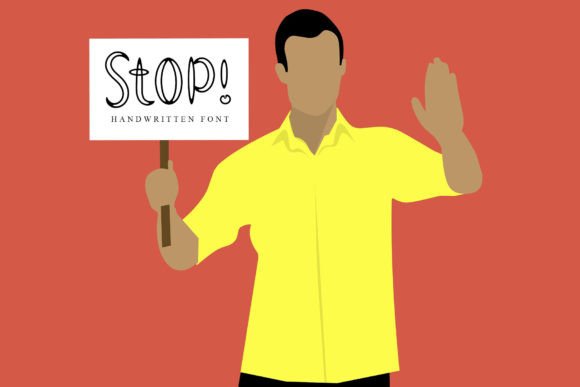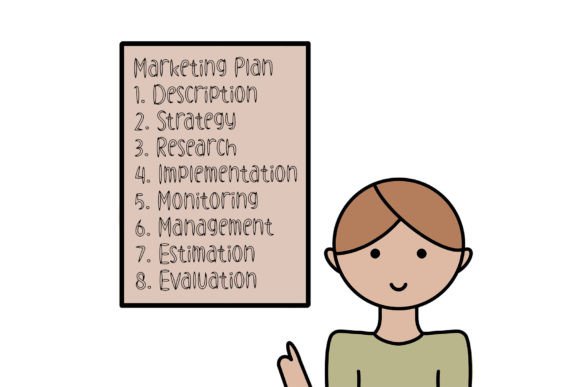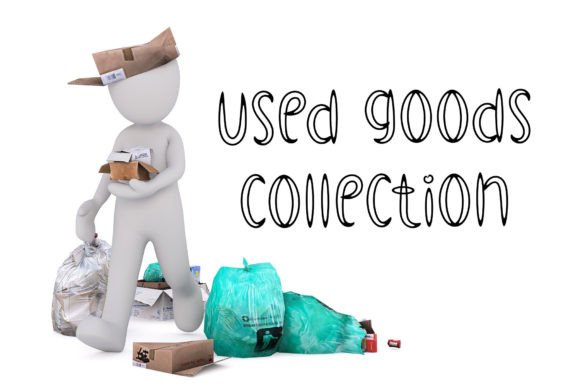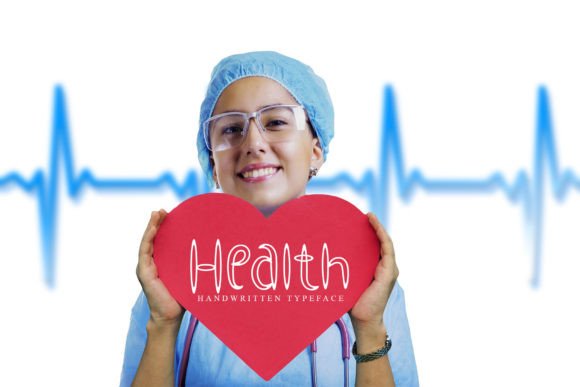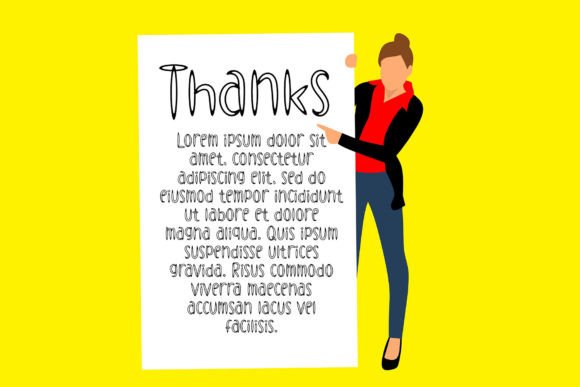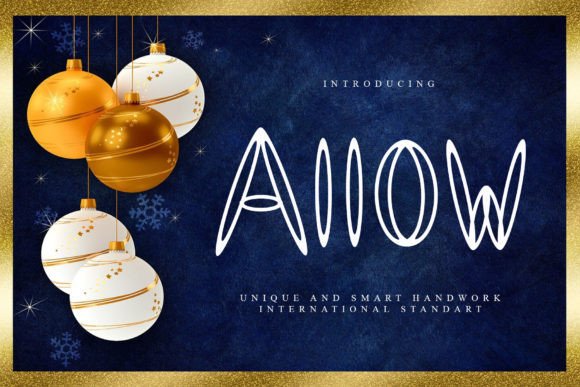
Introducing Allow Font: Elevate Your Designs with Elegance and Whimsy
In the world of typography, fonts play a pivotal role in conveying messages, evoking emotions, and adding personality to designs. For designers and crafters seeking a unique and elegant touch, the Allow Font stands out as an exceptional choice. This beautifully crafted font is not only versatile but also infused with a natural, hand-made charm that can transform any design project into a masterpiece.
Unleash Creativity with Allow Font
Allow Font is a distinctive typeface that brings a cheerful and sophisticated vibe to various design projects. Whether you’re working on wedding invitations, greeting cards, billboards, logos, or business cards, this font is sure to impress. Its varied baseline and hand-crafted feel give it a unique character that can make your designs stand out from the crowd.
Key Features of Allow Font
- Unique and Elegant Design: Allow Font boasts an elegant design with a twist of whimsy, making it perfect for projects that require a touch of sophistication and playfulness.
- Versatility: This font is incredibly versatile and can be used across a wide range of design projects, from print materials like invitations and business cards to digital platforms.
- Natural, Hand-Made Touch: The font’s varied baseline and hand-crafted feel lend a natural, organic look to your designs, making them appear more realistic and engaging.
- PUA Encoded: Allow Font is PUA (Private Use Area) encoded, which means you can easily access all glyphs and swashes. This feature allows for greater flexibility and creativity in your designs.
For designers and crafters, finding the right font can often be a challenge. Allow Font offers a solution that combines elegance, uniqueness, and ease of use. Here are some ways this font can elevate your work:
- Wedding Invitations: Add a touch of romance and sophistication to wedding invitations with Allow Font’s elegant and whimsical design.
- Greeting Cards: Create personalized and heartfelt greeting cards for any occasion with this versatile font.
- Logos and Branding: Use Allow Font to craft unique logos and branding materials that reflect your brand’s personality and values.
- Billboards and Large Scale Designs: The font’s clarity and elegance make it suitable for large-scale designs like billboards and posters.
Tips for Using Allow Font Effectively
To maximize the potential of Allow Font, consider the following tips:
- Mix and Match: Experiment with different sizes, colors, and styles to create visual interest and hierarchy in your designs.
- Pair with Other Fonts: Combine Allow Font with complementary fonts to add depth and contrast to your designs.
- Utilize Swashes and Glyphs: Take advantage of the PUA encoding to access a wide range of swashes and glyphs, adding a personal touch to your work.
Allow Font is a remarkable addition to any designer’s or crafter’s toolkit. Its unique blend of elegance, whimsy, and versatility makes it an ideal choice for a wide range of projects. With its natural, hand-made touch and PUA encoding for easy access to glyphs and swashes, Allow Font can help you create spectacular designs that bring your ideas to life. Whether you’re working on a wedding invitation, a logo, or a billboard, this font is sure to add a cheerful and sophisticated touch that will leave a lasting impression.